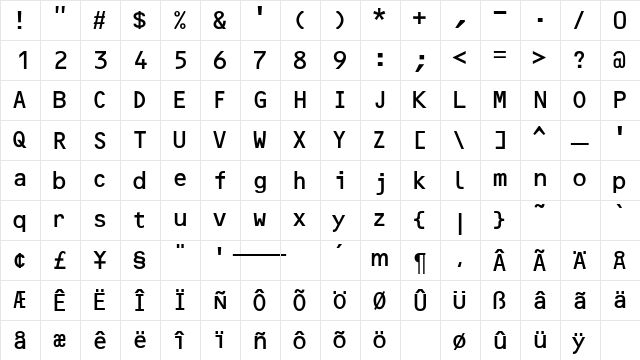
OpticalBDB Normal
Design Context for OpticalBDB Typeface
OpticalBDB takes a measured approach to typography — its balanced proportions and neutral character make it a reliable workhorse for both digital and print work.
Pro Tip: Use OpticalBDB in both headline and body roles to test its range before committing to a single application.